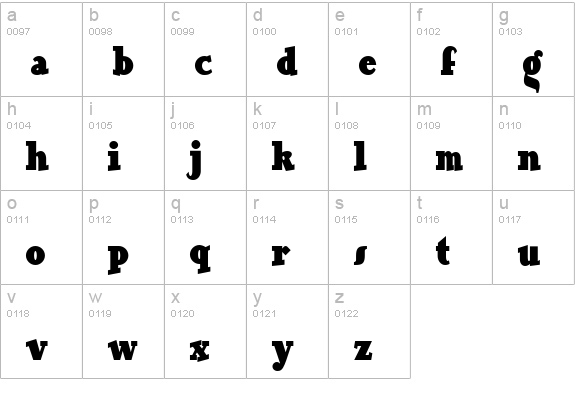
Our Gang NF font is a charming and playful display typeface that exudes a sense of nostalgia and whimsy. With its friendly and approachable appearance, this font is perfect for adding a touch of fun to your projects. Whether you're designing posters, greeting cards, or children's books, Our Gang NF font will help bring your creative ideas to life. Best of all, Our Gang NF font is available for free download at FontsMarket.com. This means you can easily access and use this delightful font in your designs without any cost. So why wait? Download Our Gang NF font today and start adding a touch of joy to your projects!